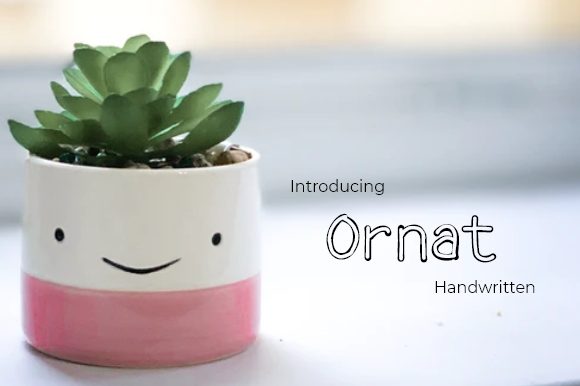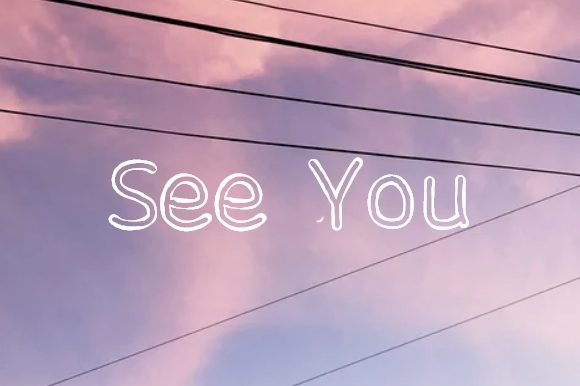
Ornat Font
About Ornat Font
Ornat is a cool handwritten font. It features outline characters. Brighten up your upcoming crafting projects with this cute font!